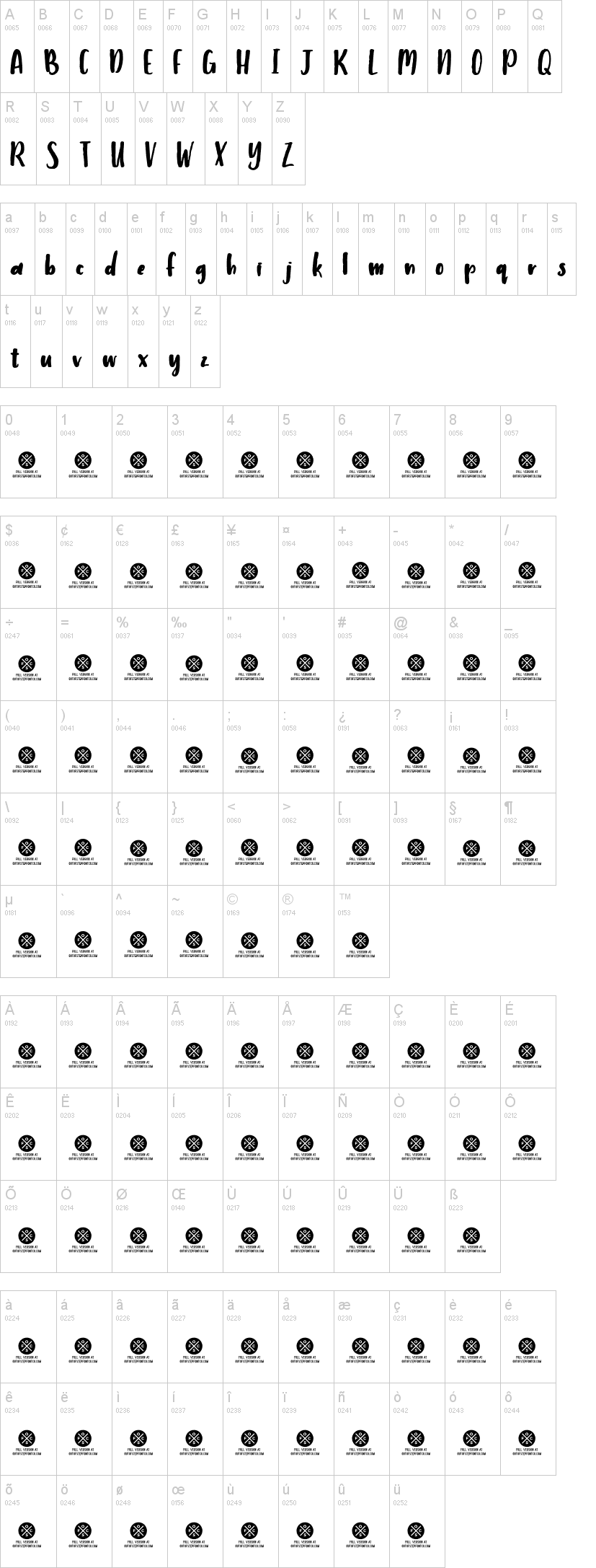
Humbley Script
Humbley Script by Out of Step Font Company
Humbley Script is a fun, hand-drawn modern calligraphy script. Humbley was designed for Etsy sellers, poster printers, and anyone else looking to add a little fun to their projects.
Humbley features a ton of accented characters, making it a great way to represent plenty of European languages. We're sure that Humbley will be just what you need to make inspirational postcards, art prints, home decor pieces, and other graphic design projects.